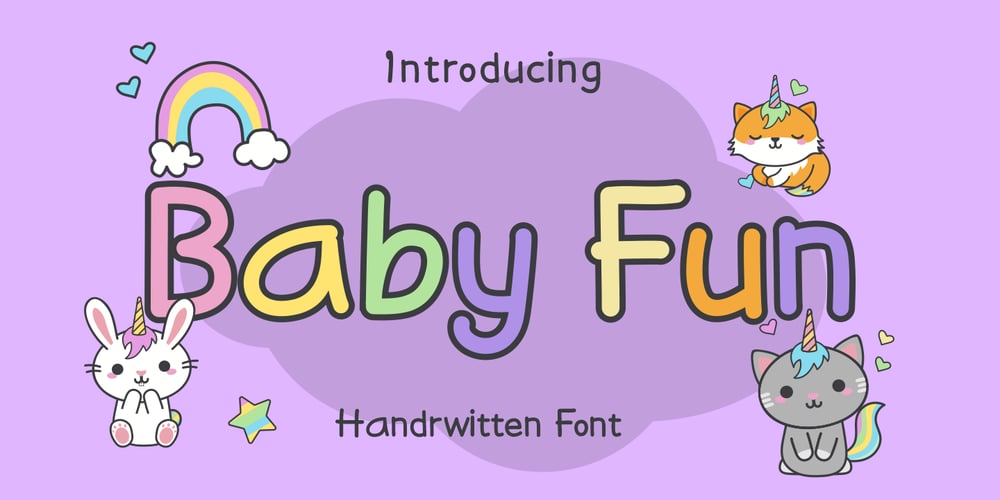
Baby Fun
Baby Fun font
Baby Fun Font Family was designed by Dian Haniffan Hadi and published by Beary. Baby Fun contains 1 styles and family package options. Baby Fun is inspired by the playfulness of hand lettering. This font can be used for comic design, children’s books, preschool name tag and more.